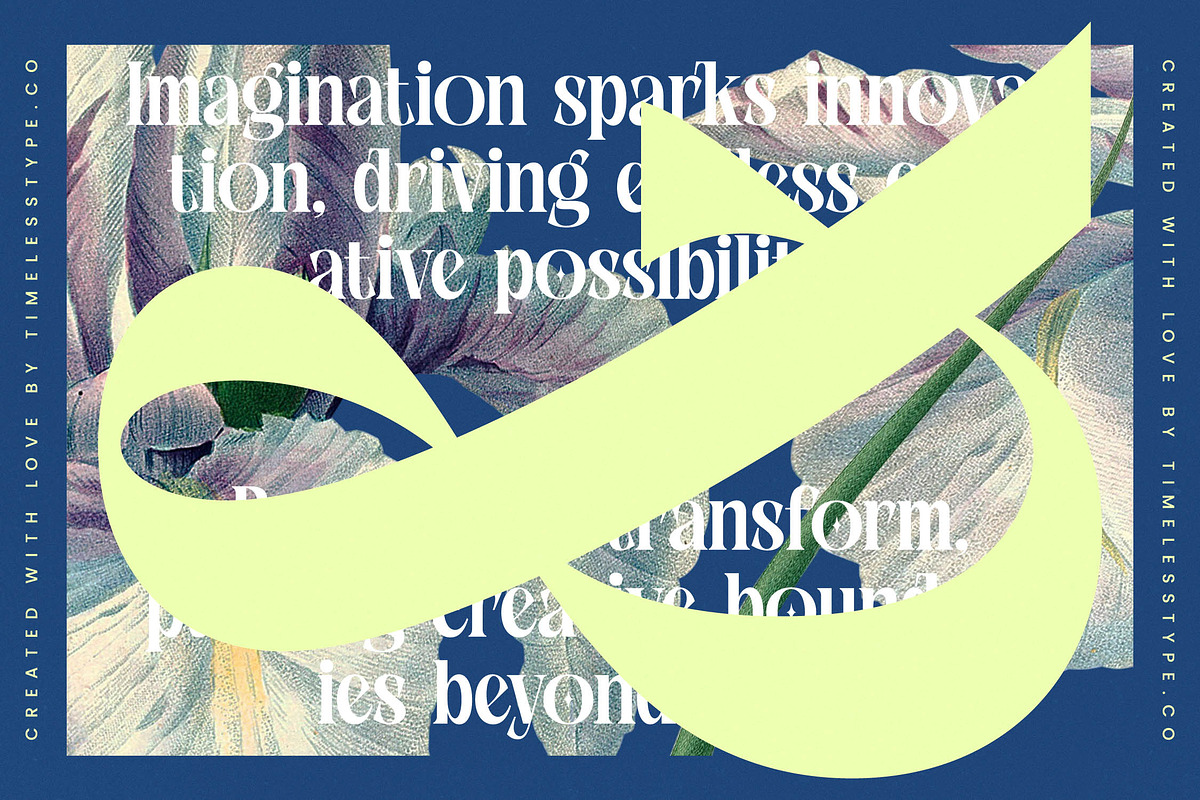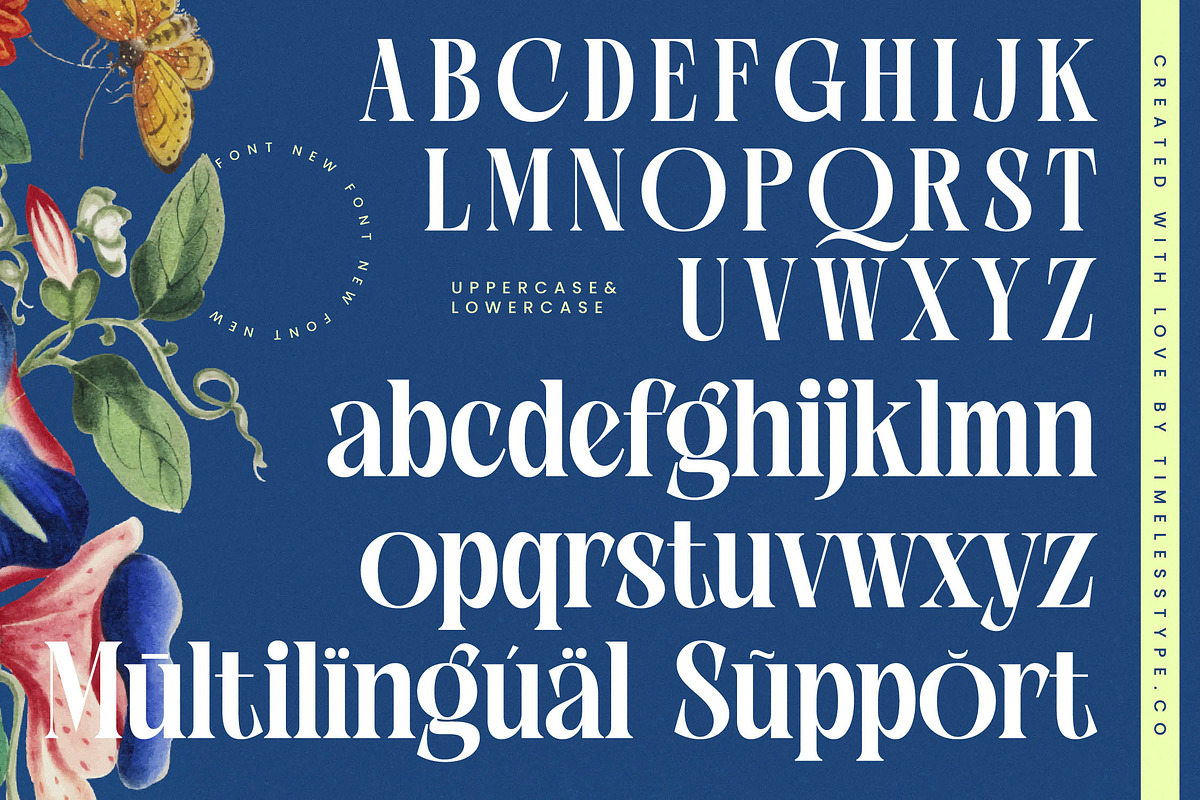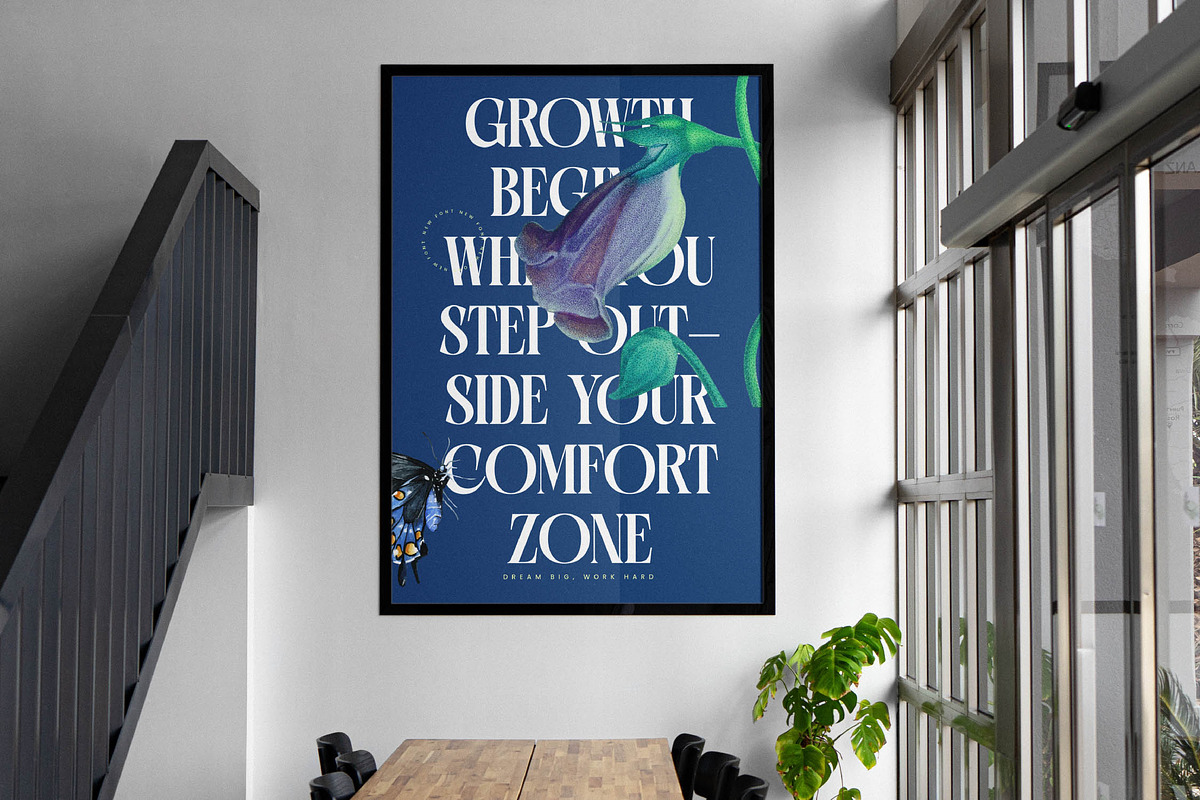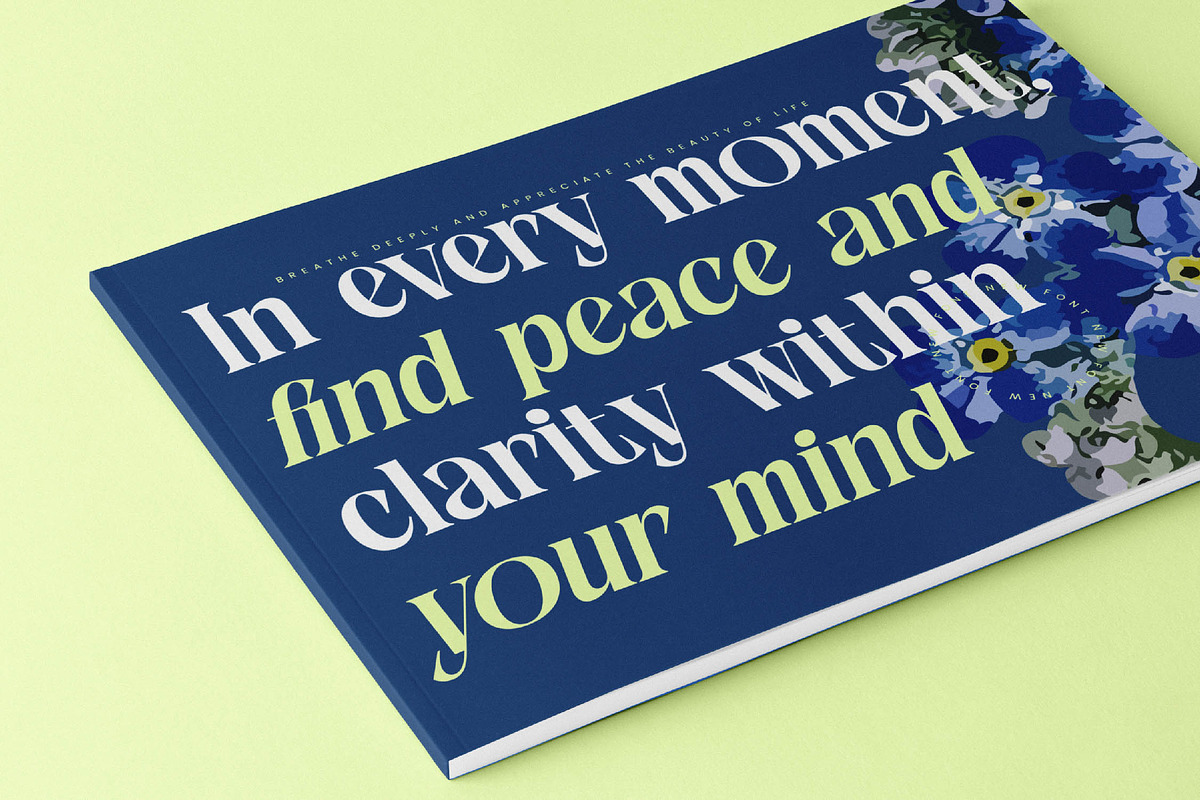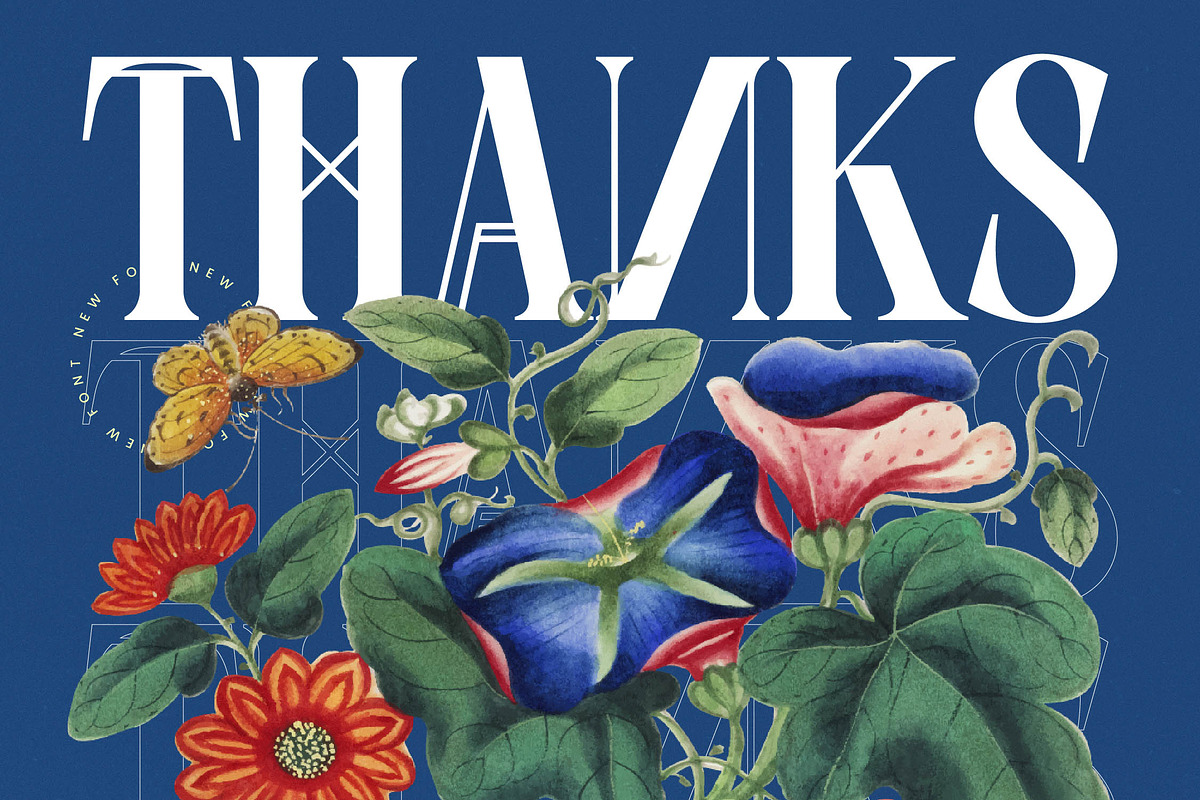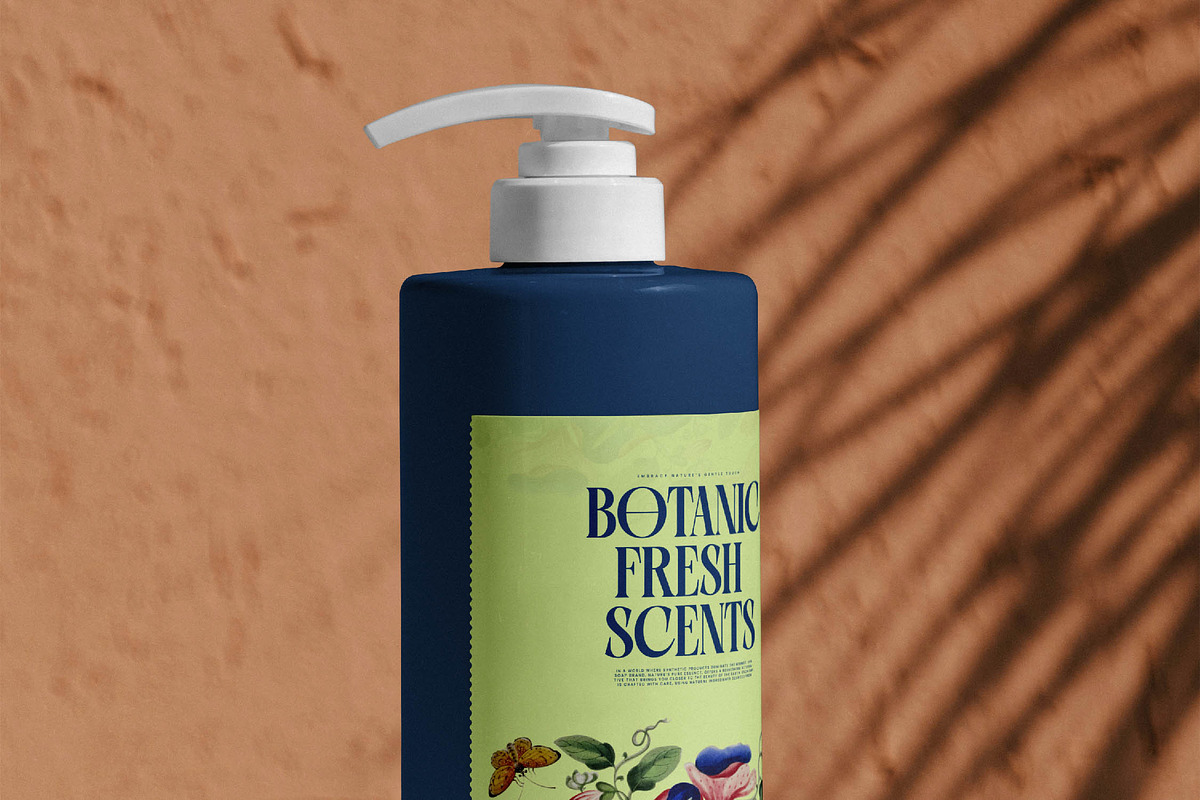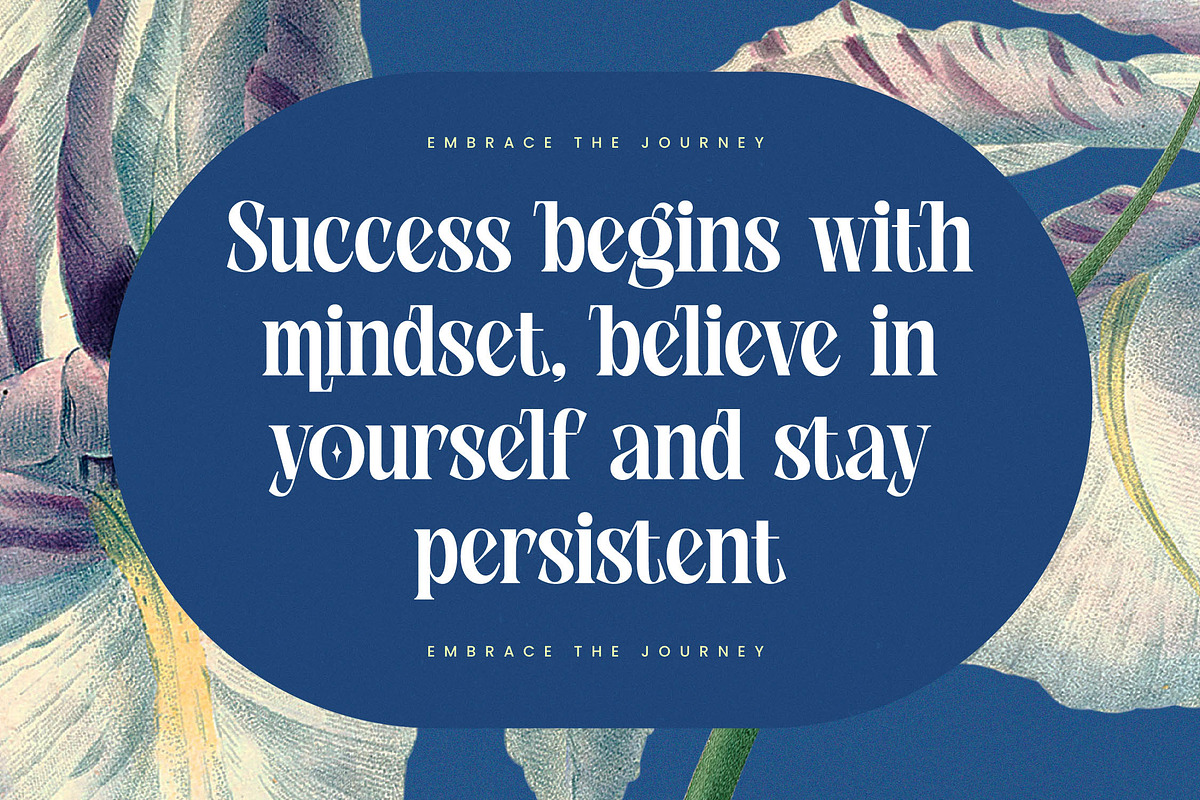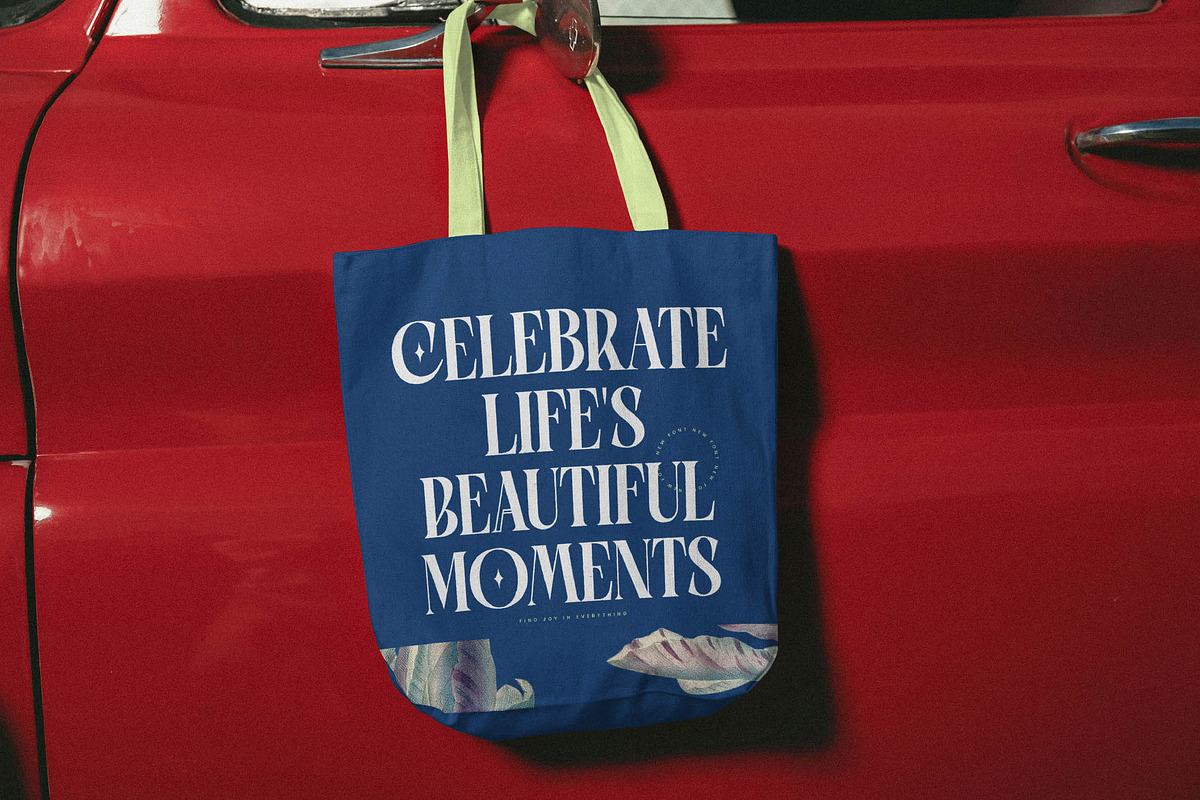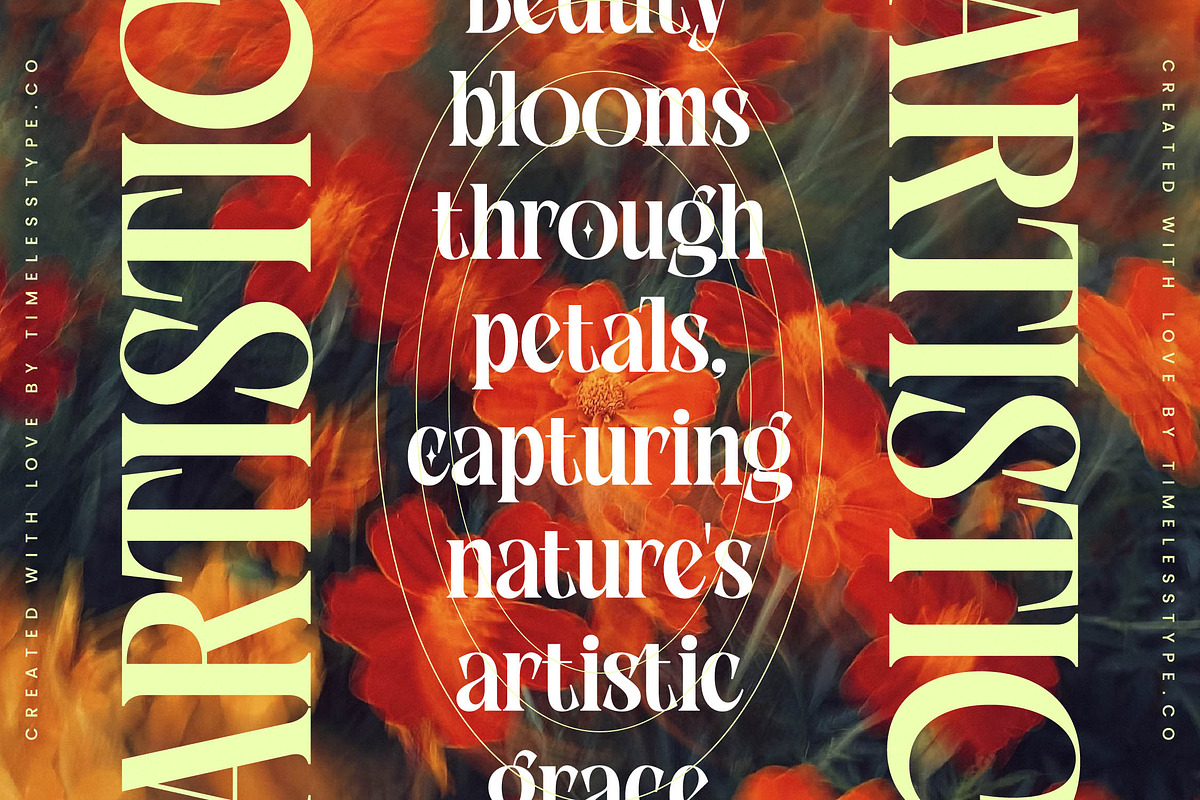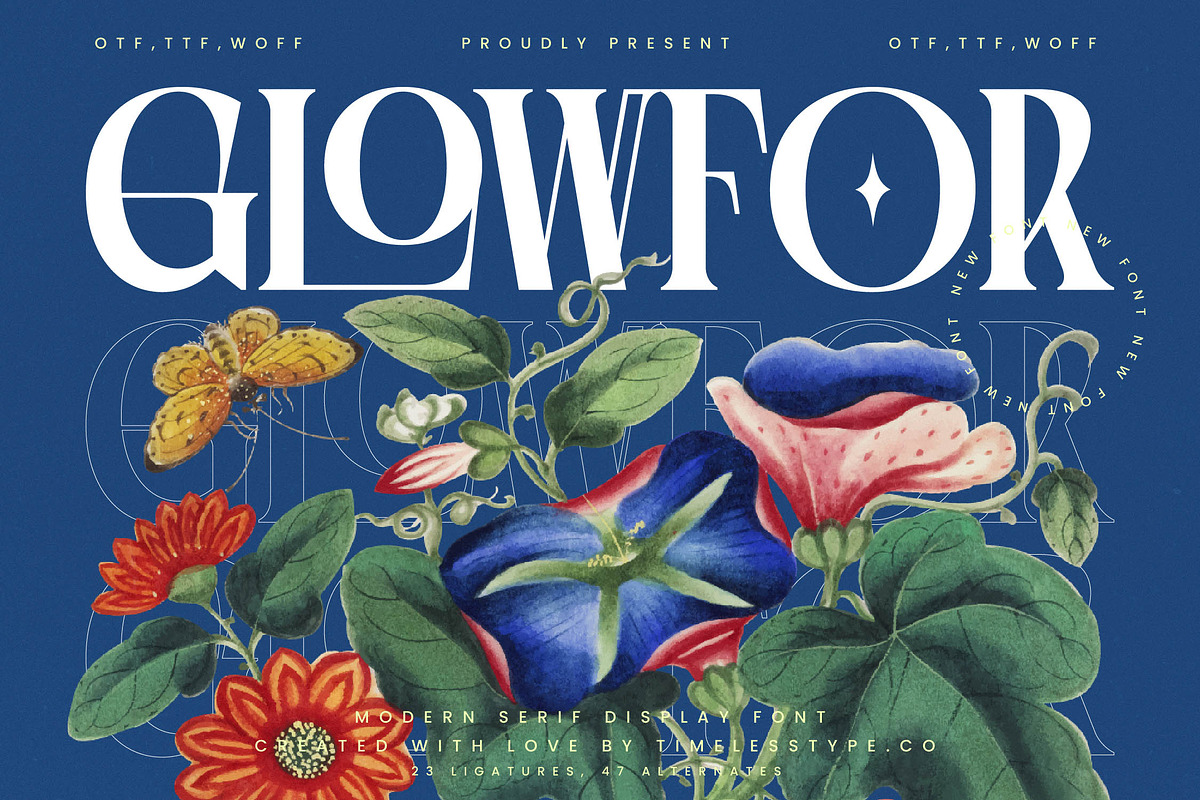
Glowfor Modern Serif Display Font
Elevate your creative vision with Glowfor, a masterfully crafted typeface that blends classic elegance with a sharp, contemporary edge. It is designed for those who seek to make a lasting impression through sophisticated and timeless visual storytelling.
Drawing inspiration from the golden age of editorial design and botanical illustration, this font captures a romantic yet structured atmosphere. It evokes the feeling of high-end vintage magazines where nature’s organic flow meets the precision of architectural type.
The modern serif display character of this font ensures a high level of luxury typography in every layout. Featuring a high-contrast serif structure, it serves as a definitive editorial font that delivers a powerful branding impact for sophisticated projects.
Aligned with the current modern serif trend, this typeface is perfect for designers looking for editorial display fonts that offer more than just legibility. Its character-driven typography allows for unique compositions that stand out in a saturated digital landscape.
This versatile typeface is the ideal choice for logo design and high-end branding, offering a refined touch to editorial layouts and product packaging. Whether it is used for a luxury wedding invitation or a minimalist fashion campaign, it brings an air of effortless grace.
The font comes packed with 23 unique ligatures and 47 creative alternates, giving you endless stylistic options. It also includes full multilingual support and a wide range of international characters to ensure your designs resonate across global markets.
- Ligature 23 Alternate 47